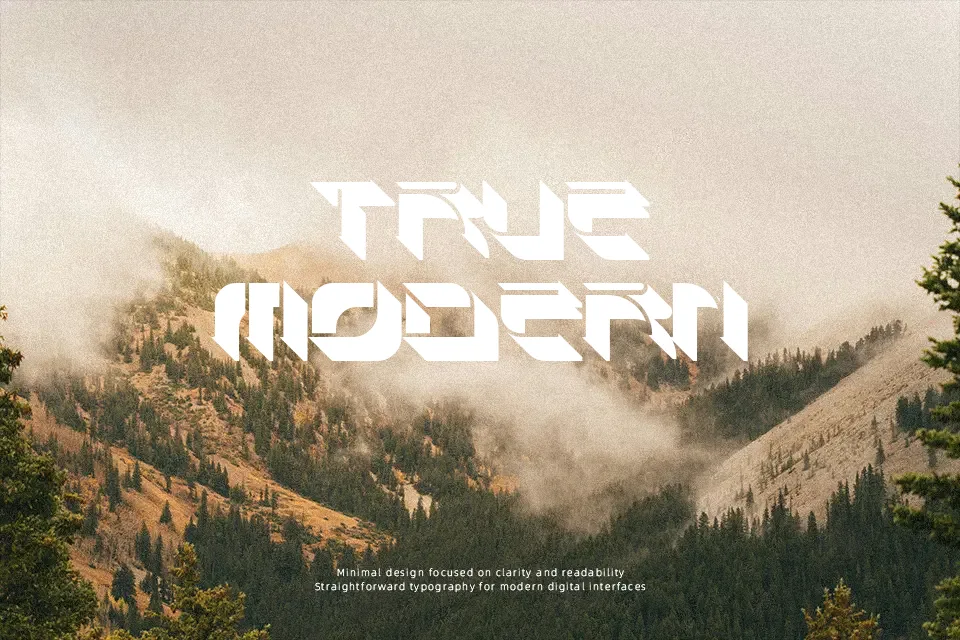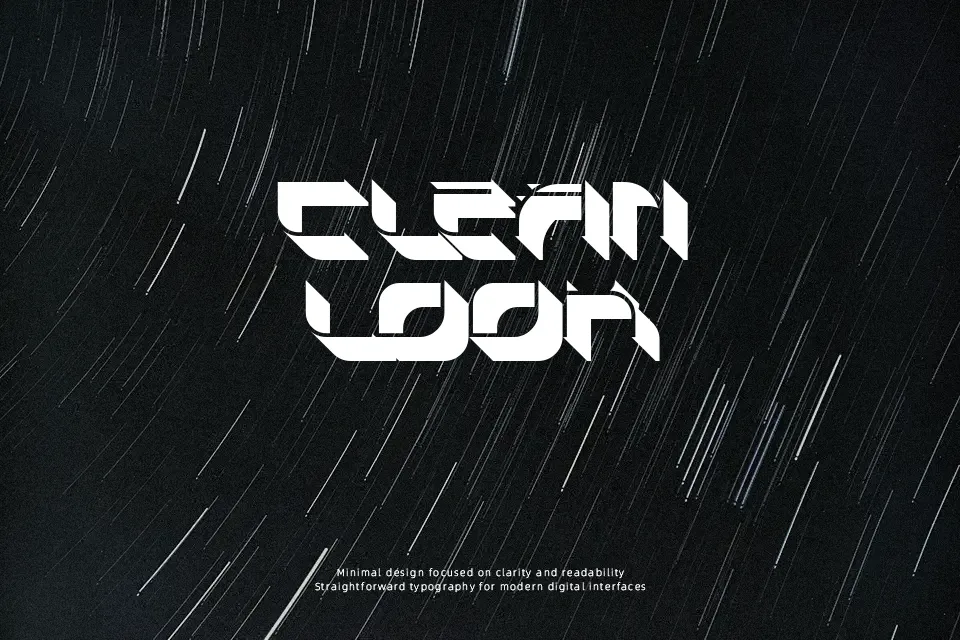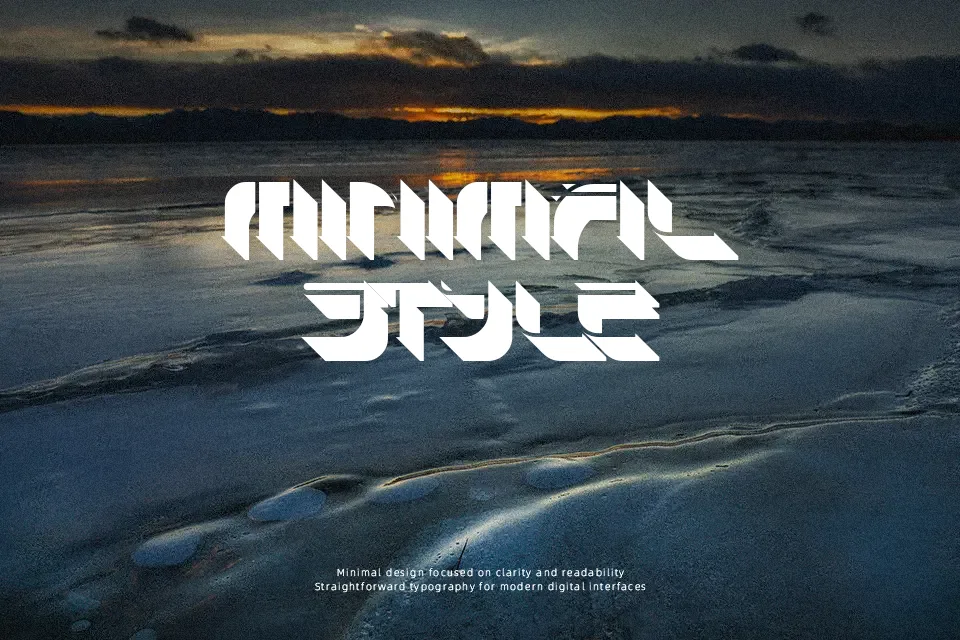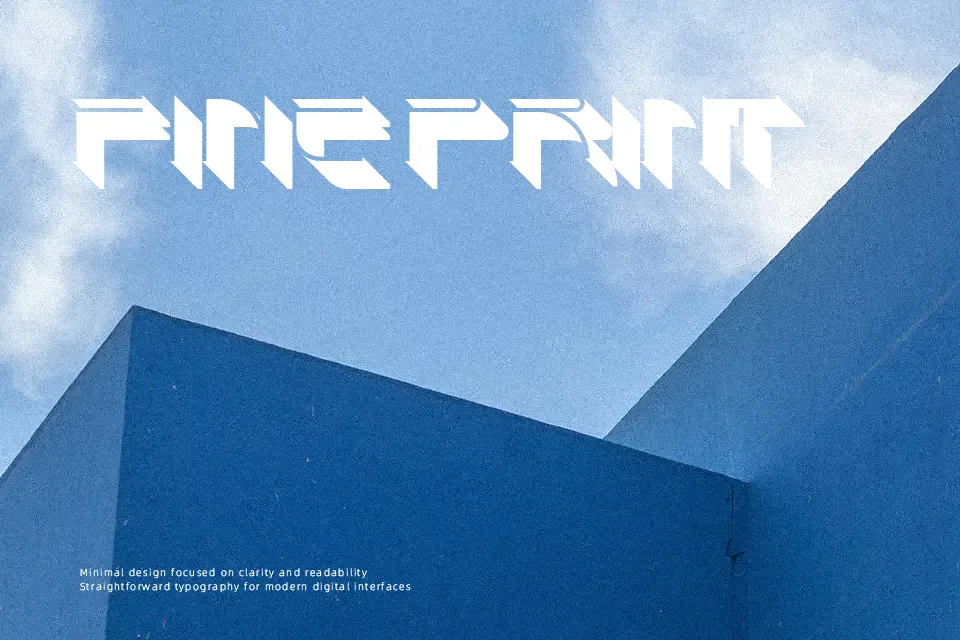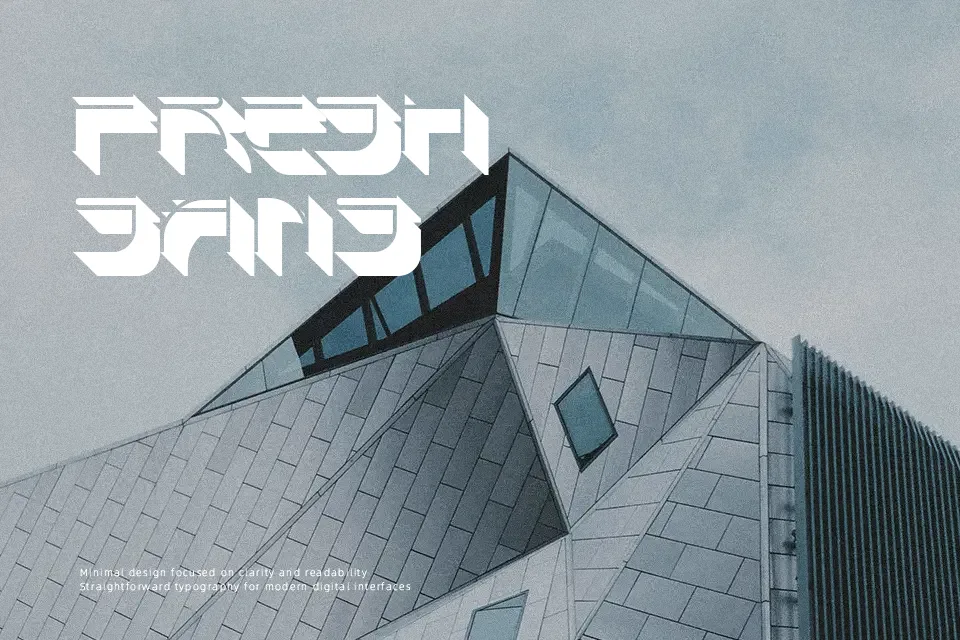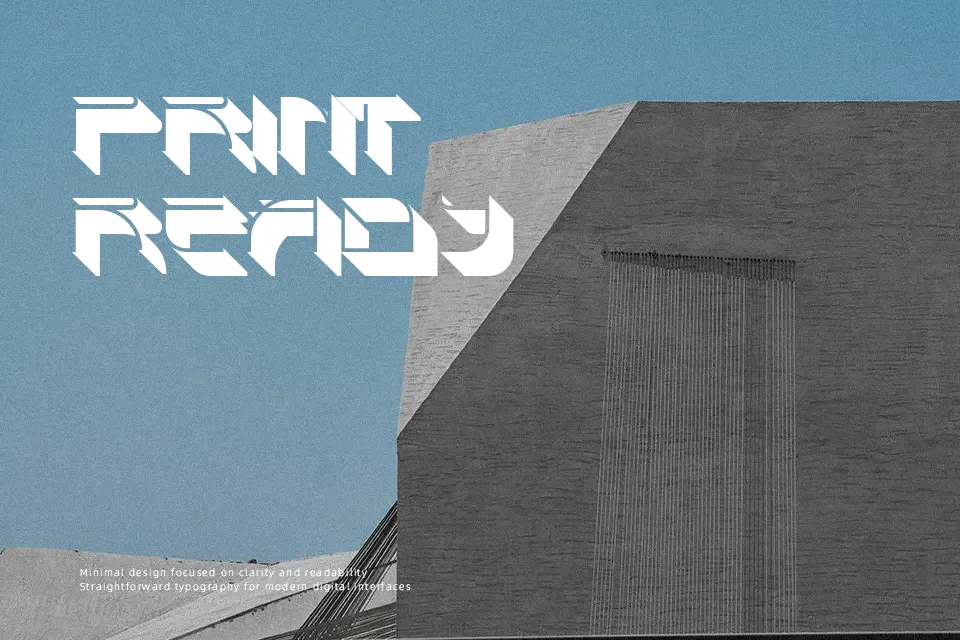
Spondulix NF Font
Defined by its heavy dimensional construction and angular facets, Spondulix NF Font delivers a distinct retro-futuristic aesthetic inspired by mid-century dimensional lettering. The typeface features robust stroke weights with integrated shadow planes, creating an illusion of physical depth across its squared proportions. Tight character spacing reinforces its solid, blocky rhythm, ensuring strong visual cohesion when set in short headlines, gaming logos, or thematic apparel graphics. However, the intricate internal relief lines degrade rapidly at smaller scales, rendering the design unsuitable for continuous body text, mobile interface labels, or fine print. The bold structural depth commands immediate focus in prominent display settings.
Best For: retro sci-fi posters, arcade game logos, vintage packaging headlines, thematic apparel graphics
Not Ideal For: continuous body text, mobile interface labels, small editorial captions, dense document layouts
Perfect for 3d, headline, and logo, with a bold and decorative style.